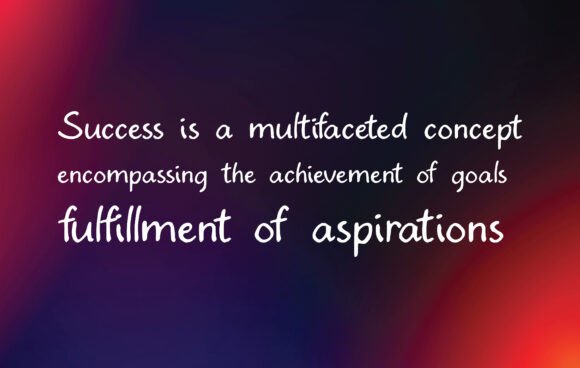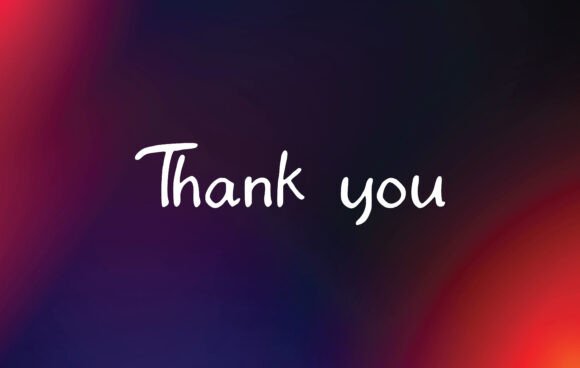
Introduction to Poinsettia Font
Have you ever stumbled upon a design that makes you stop and say ‘wow’? It’s that moment when creativity strikes, and the perfect font becomes the game-changer. For designers, finding the right font can be a daunting task, but what if you stumbled upon a font that not only elevates your design but also adds a touch of elegance? Enter the Poinsettia Font, a beautiful and charming handwritten font that’s about to take your creative ideas to new heights.
As a valuable resource for designers, the Poinsettia Font offers a unique blend of high-quality and versatility, making it perfect for a wide range of creative projects. Whether you’re working on a logo, branding, or a quote, this font is sure to impress with its transparent background and free download option, making it an essential design resource for any creative enthusiast.
Key Features of Poinsettia Font
- High-quality design: Poinsettia Font is a premium design resource ideal for creative projects requiring a unique touch.
- Transparent background: Poinsettia Font features a transparent background, allowing for seamless integration with various design elements.
- High-resolution design: Poinsettia Font is designed at 300 DPI, making it suitable for high-resolution printing and digital applications.
- Unique characteristics: This font features elegant, cursive script lines and ornate details, setting it apart from other design resources.
- Perfect for creative projects: Poinsettia Font is an excellent choice for designers working on wedding invitations, holiday cards, and other creative projects requiring a touch of elegance.
Honest Review: Poinsettia Font
I recently had the chance to work with the Poinsettia Font, and I’m excited to share my thoughts on this beautiful design resource. The Poinsettia Font is a high-quality, elegant script font perfect for adding a touch of sophistication to any creative project.
Here are some things that work well with the Poinsettia Font:
- ✨ Beautiful, intricate designs that add a unique touch to any project.
- ✨ Excellent for use in creative projects, such as wedding invitations, branding, and more.
- ✨ High-quality font that’s perfect for printing or digital use.
- ⚠️ The Poinsettia Font doesn’t include a transparent background option, which may be a issue for some designers.
Overall, I was really impressed with the Poinsettia Font. While it may have some limitations, it’s a beautiful design resource that’s perfect for creative projects. I highly recommend it for designers looking for a high-quality, elegant script font.
Tips for Getting the Most Out of Poinsettia Font
Use a transparent background to create a sense of depth and dimension in your design. Experiment with different font sizes and styles to add visual interest. The Poinsettia Font is a versatile design resource that can be used for a wide range of creative projects.
The Poinsettia Font is perfect for holiday-themed designs, such as Christmas cards and gift tags. It’s also great for creating elegant invitations and wedding stationery. With a high-quality font and free download, you can use it for any design resource, from logos to graphics and illustrations.
The Poinsettia Font supports font sizes from 8 to 120 points. However, we recommend using it at font sizes between 12 and 48 points for optimal readability. You can adjust the font size to suit your design needs, but be aware that very large font sizes may affect the font’s legibility.